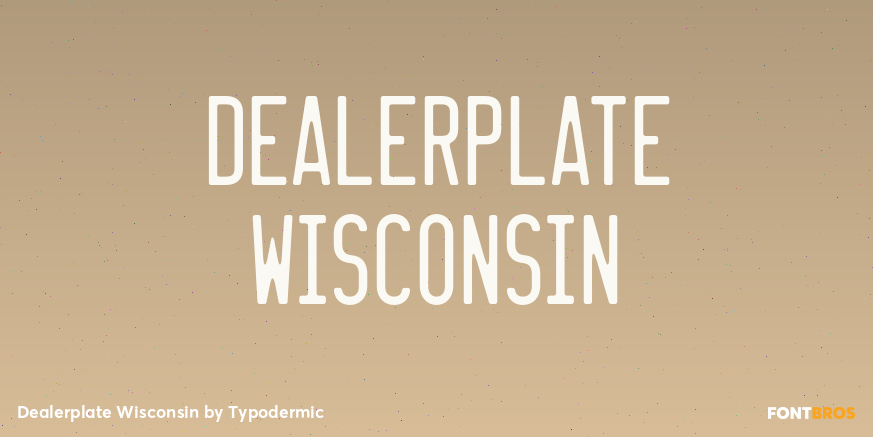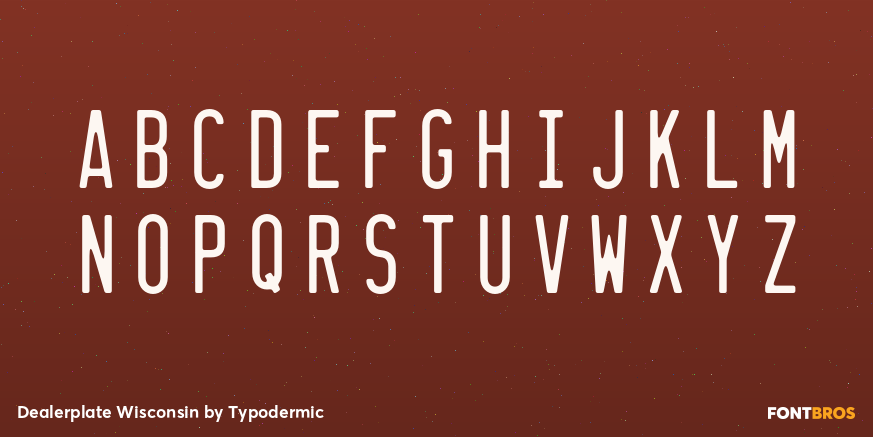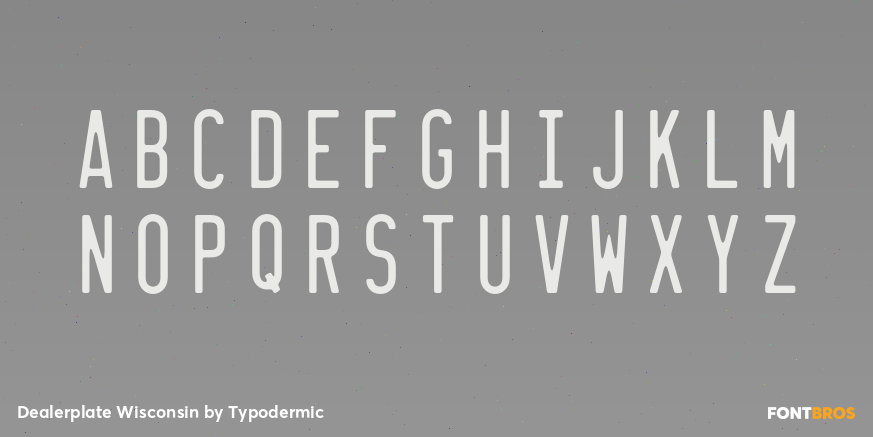
Dealerplate Wisconsin
Dealerplate Wisconsin extends Wisconsin-inspired license-plate lettering into a complete alphabet for vehicle props and digital settings. It supplies the characters needed for fictional registrations and related typography while retaining the regional feel of a Wisconsin plate.
Use it for Great Lakes stories, rural and urban Midwestern scenes, police-procedural props, trucking or driving games, virtual-production traffic, evidence photographs, impound paperwork, parking permits, and motoring exhibits. When plate lettering needs to continue into case labels, vehicle menus, registration inserts, garage signs, or dealership graphics, this style keeps the Wisconsin setting coherent across the production.